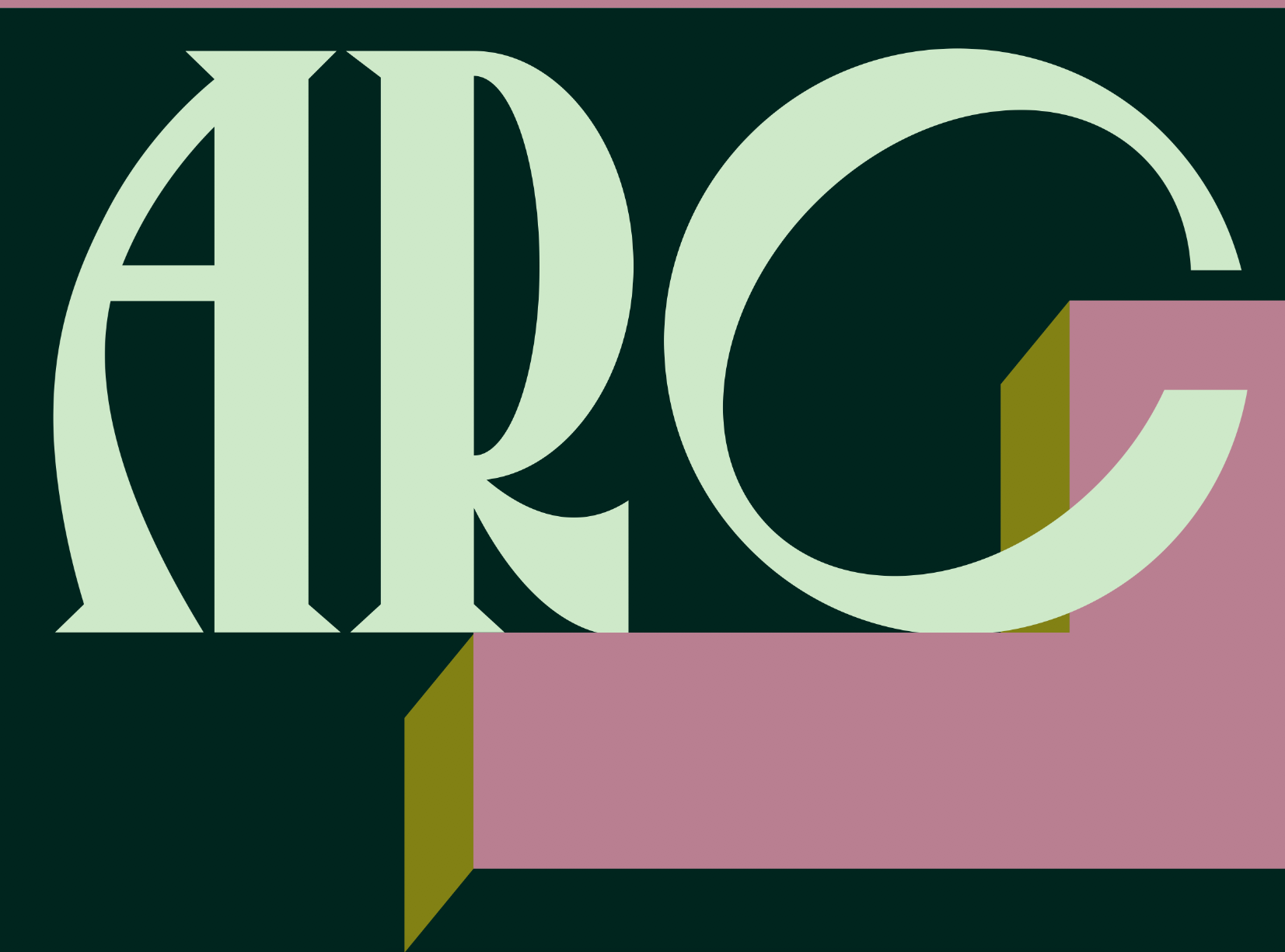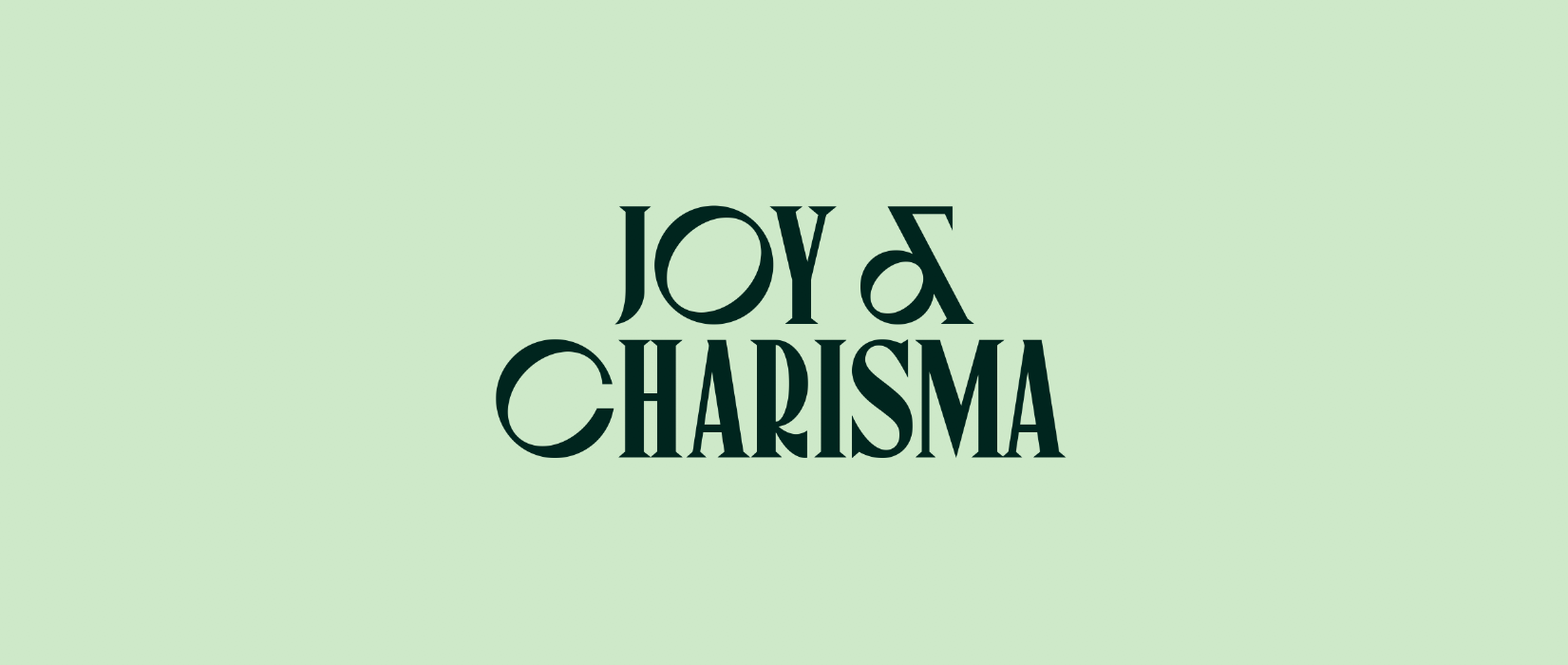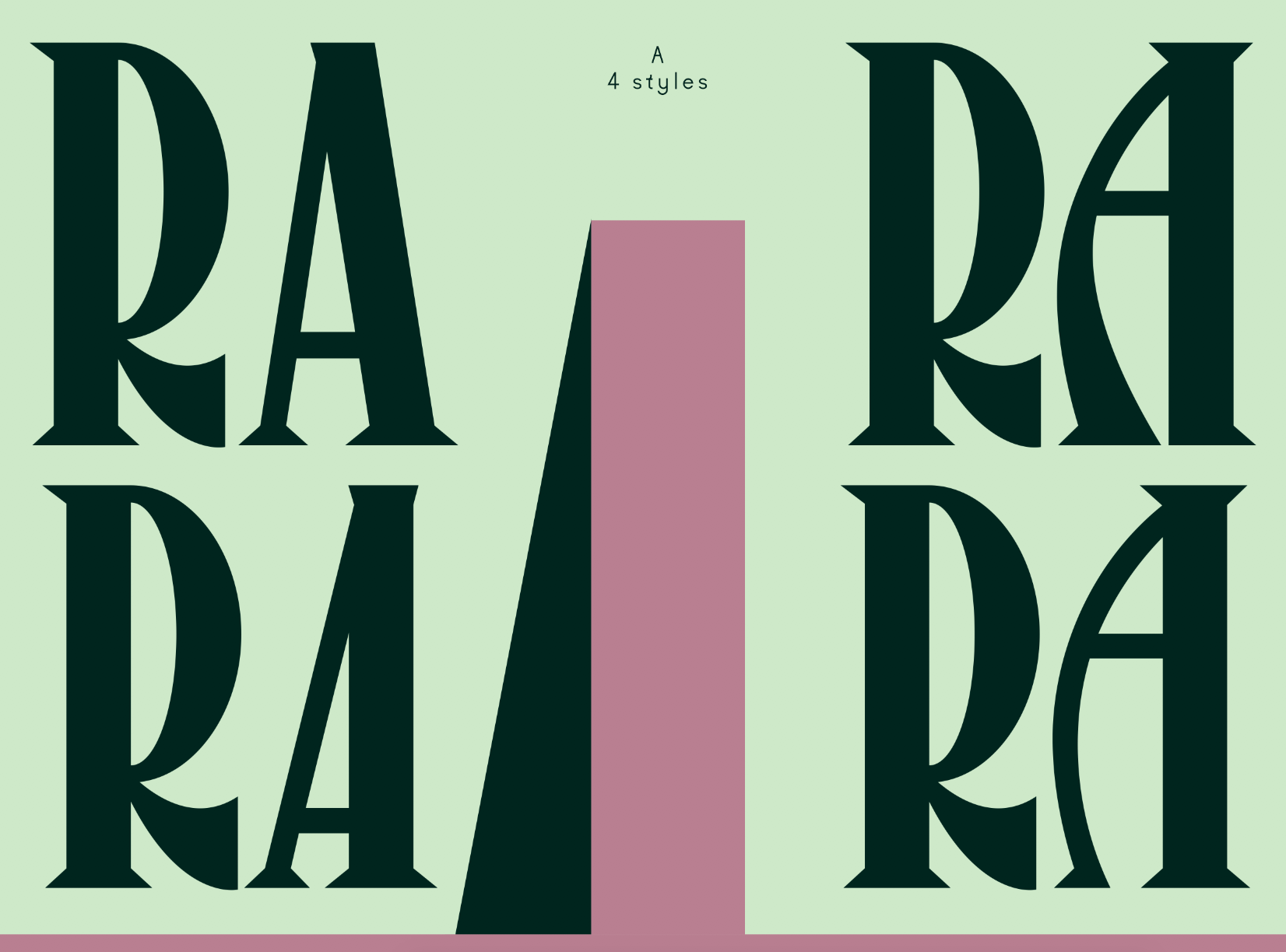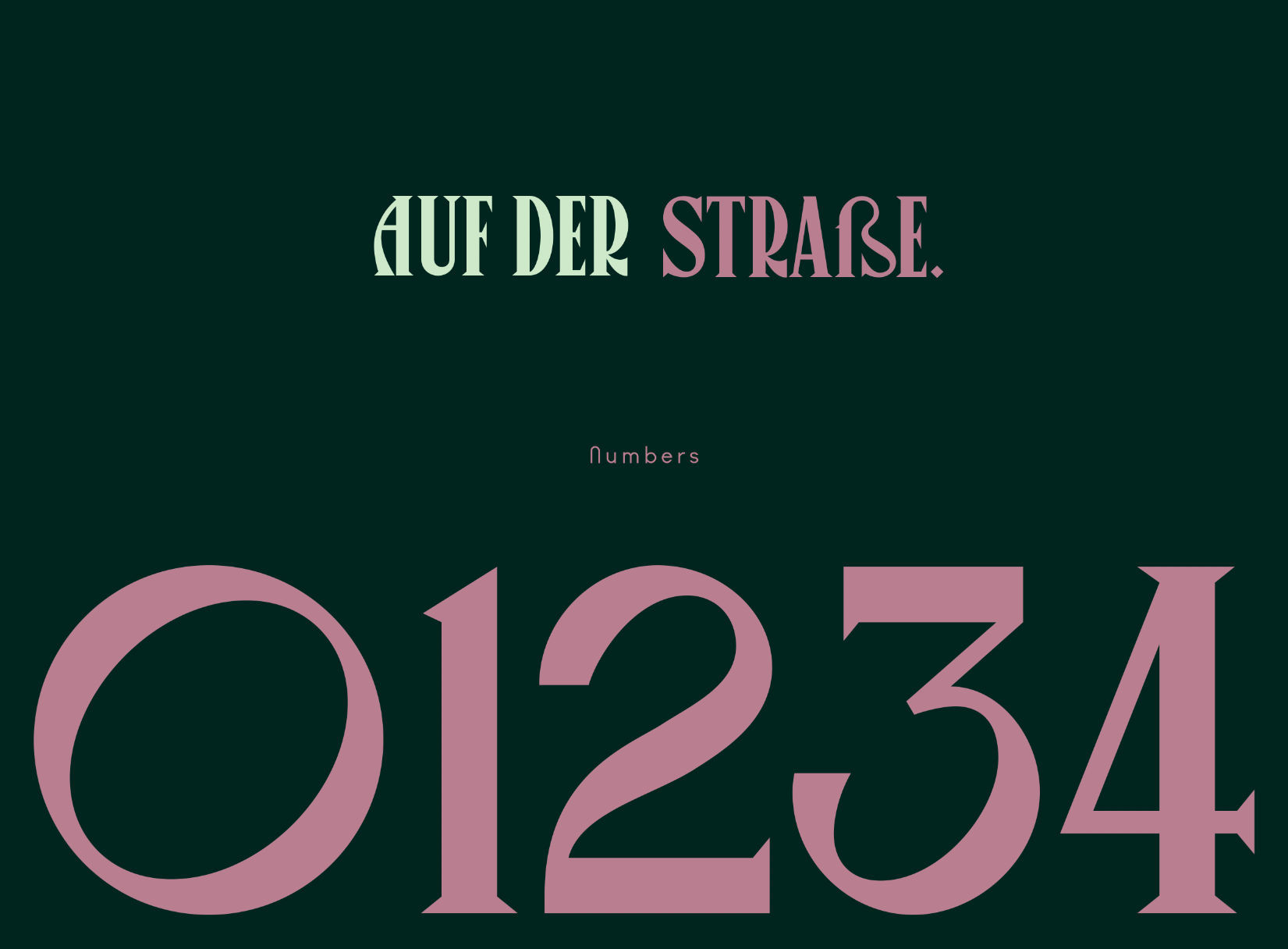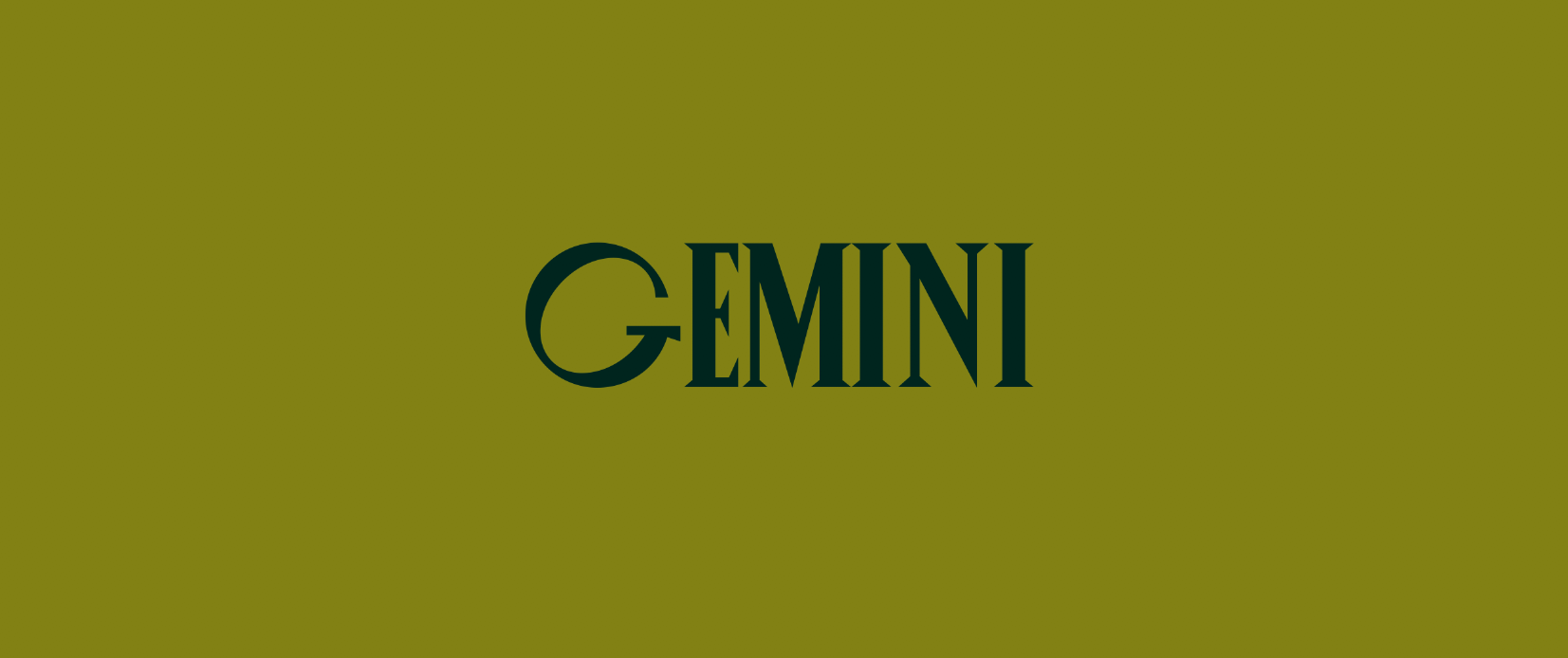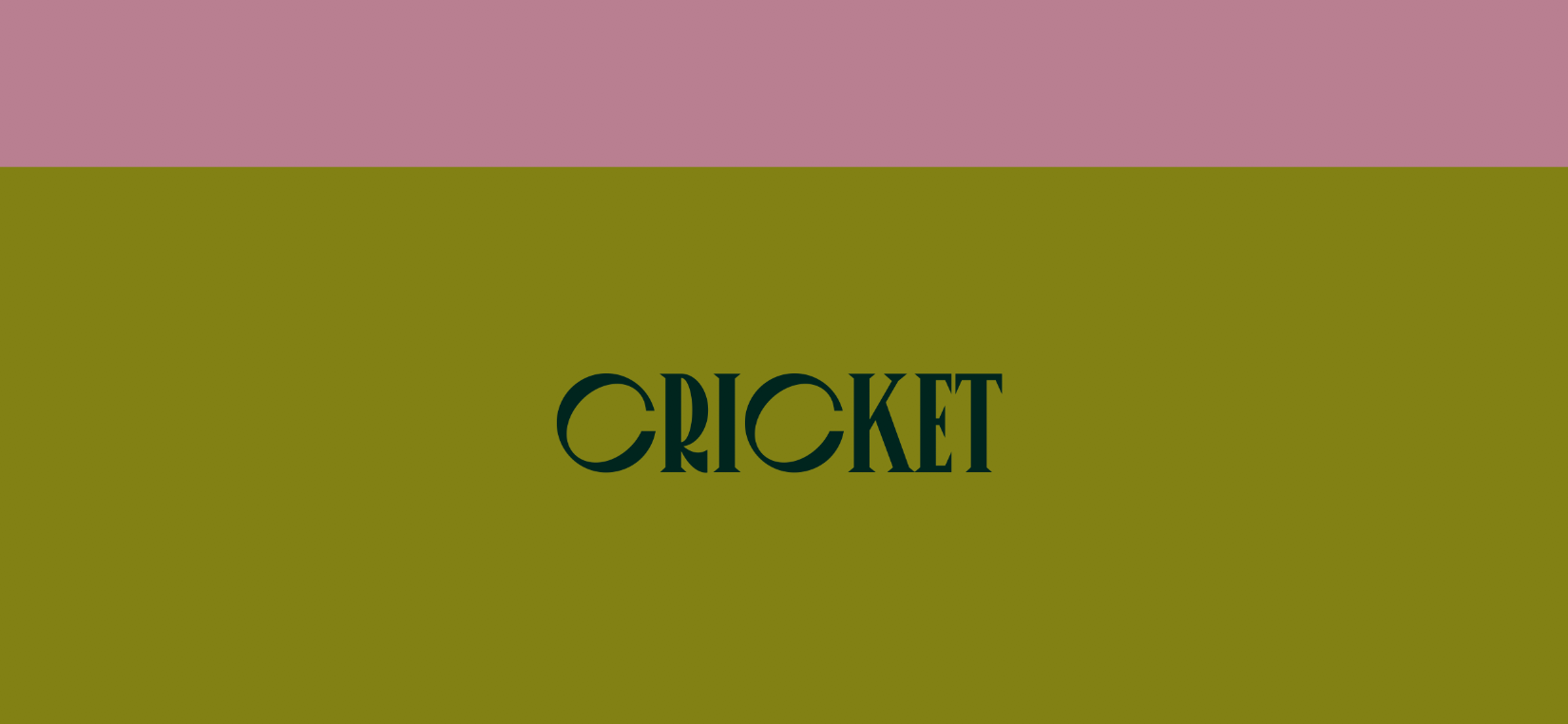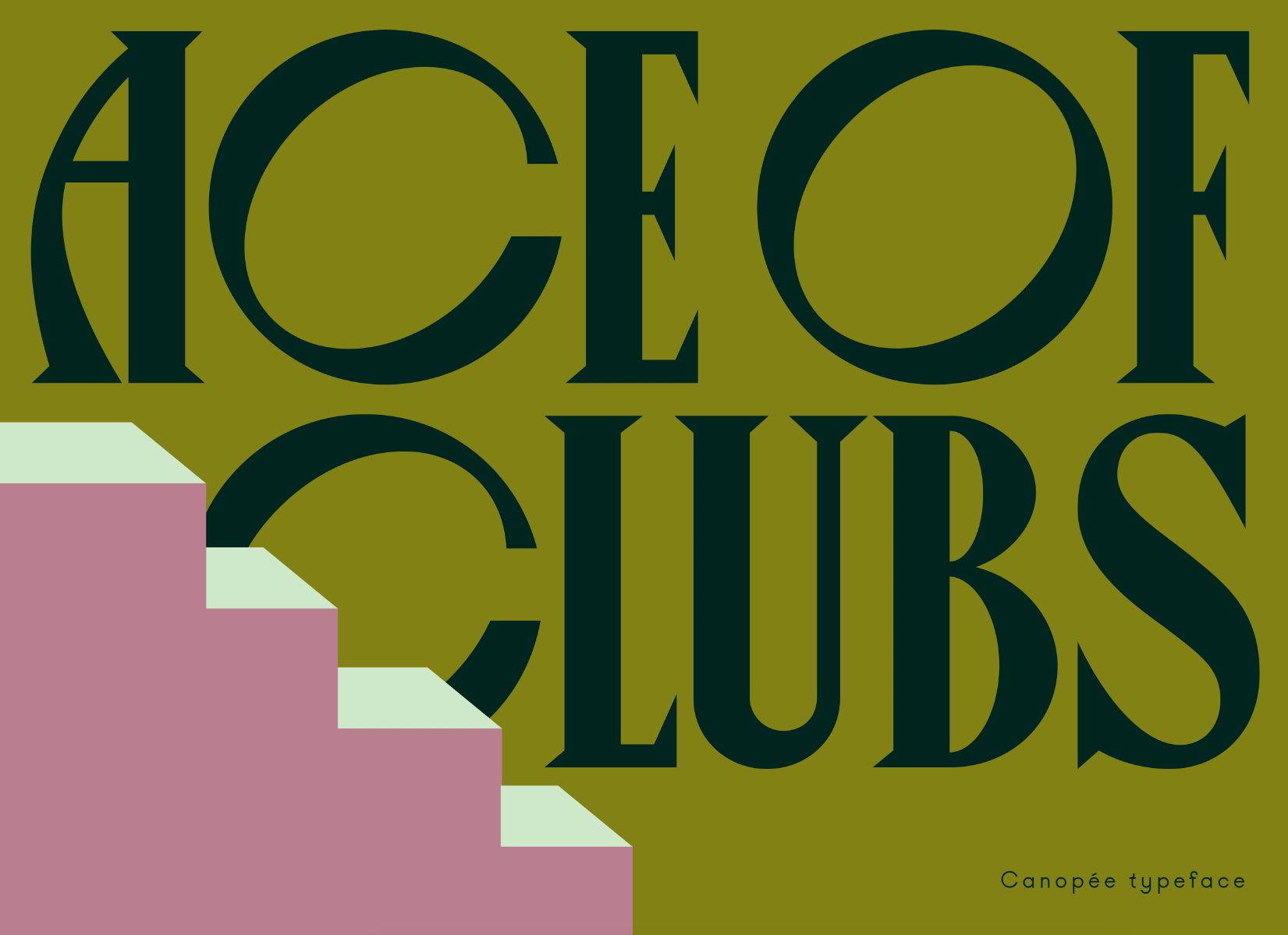
Canopée typeface
Canopée was created in 2016 in Paris. Canopée is an uppercase display stylish title typeface. His expressive character adopts an old-style classicism, particularly sharp. It contains many alternates.